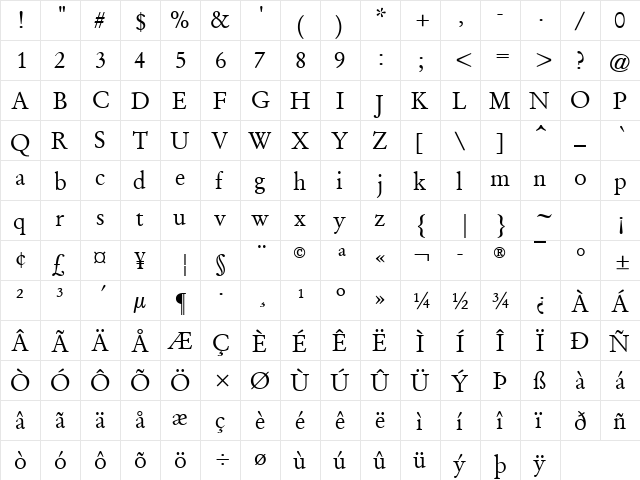
Garamond Antiqua
Design Context for Garamond Typeface
Garamond offers clean, dependable letterforms without strong stylistic allegiance, making it a practical choice for designers who need flexibility.